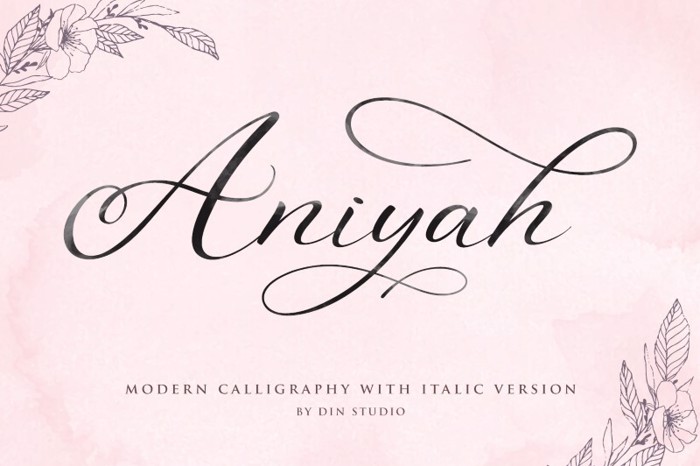
Aniyah Font
Aniyah Script – Beautiful Calligraphy. Being made with naturally handwritten and modern style, it brings a beautiful and modern typeface. Aniyah Script is best used for weddings, brandings, logotypes, and quotes.
Aniyah Script features:
• Beautiful ligatures
• Multilingual Supports
• Numbering & amp; Punctuations
• 1 front swash & 2 end swashes (a-z)
• Alternates (b,d,g,h,j,k,l,t)